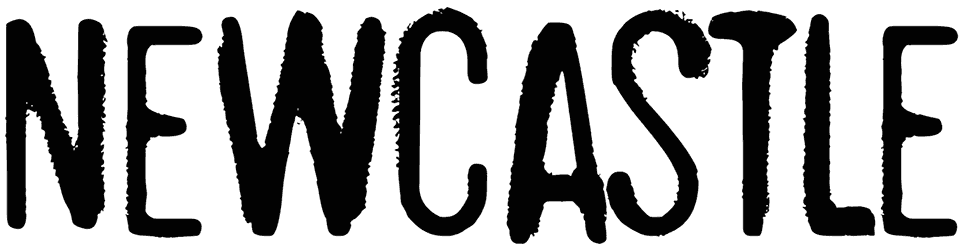
Newcastle Font
With a modern and urban face, you can create an attractive style for many different designs. This industrial font, which is known as Newcastle, is able to bring this kind of style to your words. Newcastle doesn’t offer lowercase letters, but it can fit many items, such as posters, movies, logos, and so forth, and give them a captivating vibe.